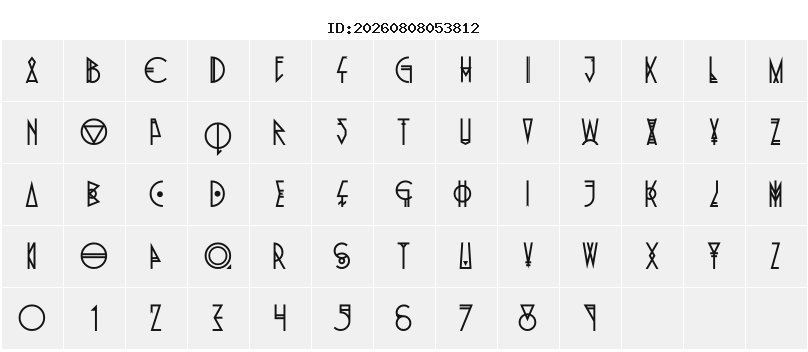
• Font Name: Pride Of The Young
• Designer: Dirt2.com
About Pride Of The Young.otf
Pride Of The Young.otf is a modern, elegant sans-serif font designed for ultimate readability and visual harmony. Perfect for branding, headlines, web design, and print materials.